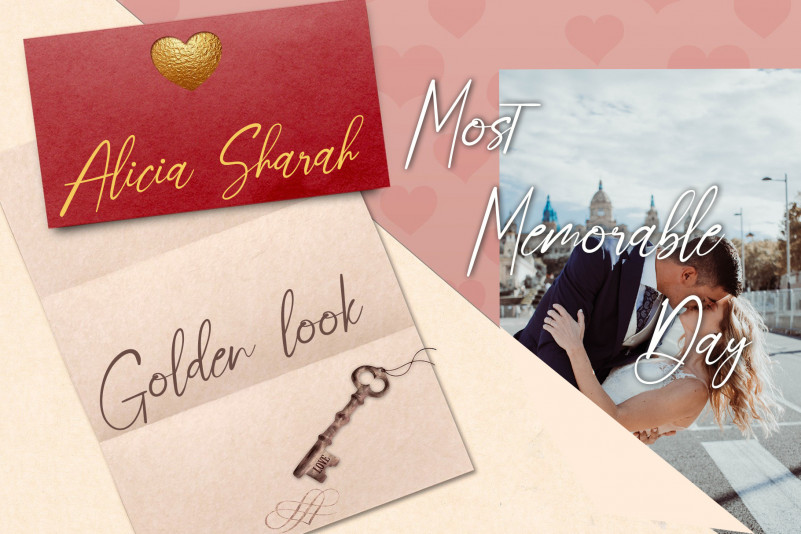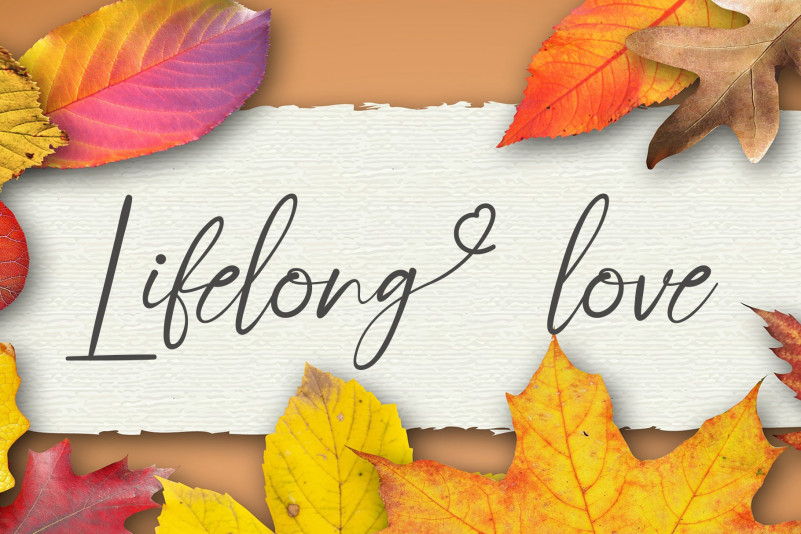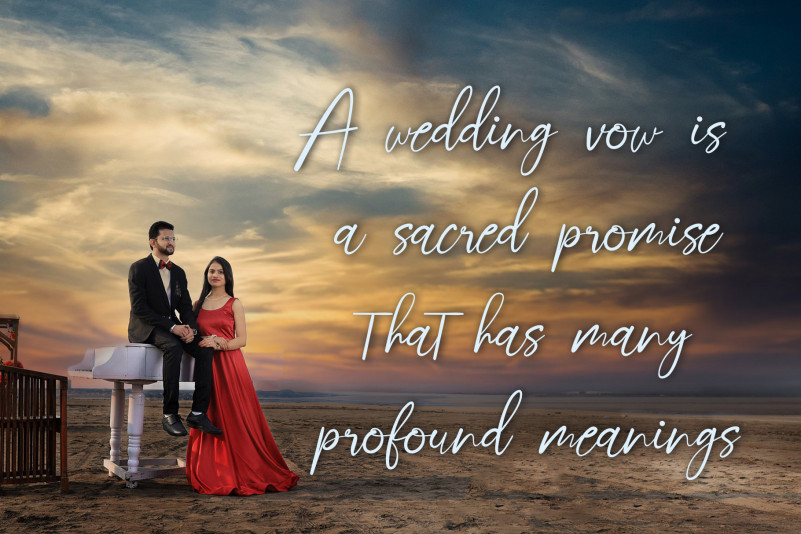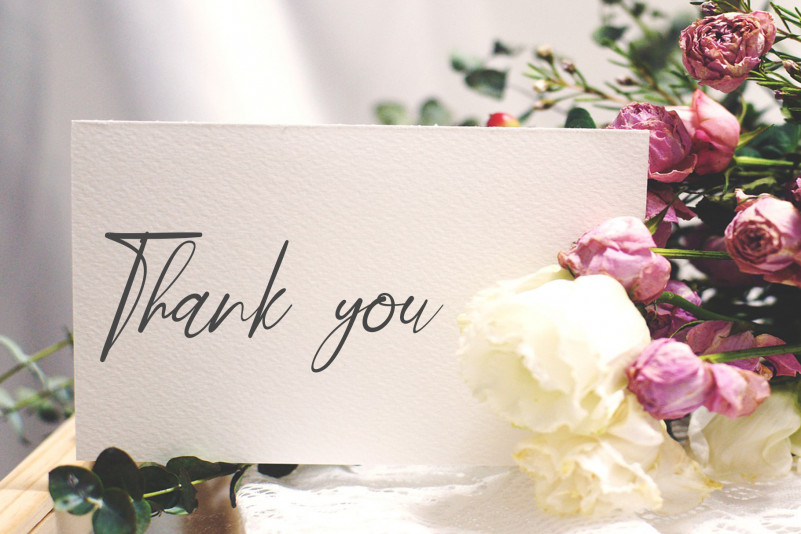
Wedding Font
Wedding Calligraphy Font
This is a romantic and sweet calligraphy typeface with characters that dance along the baseline. It will add a luxury spark to any design project that you wish to create!